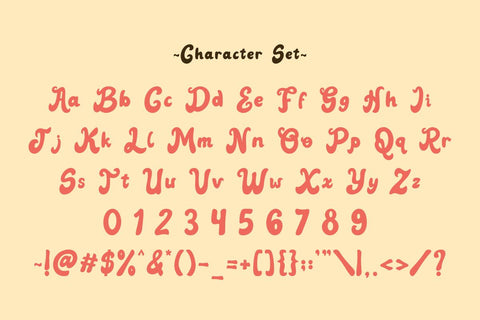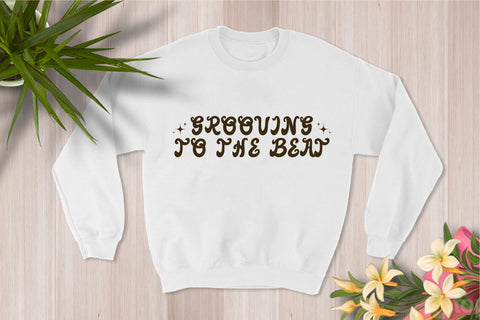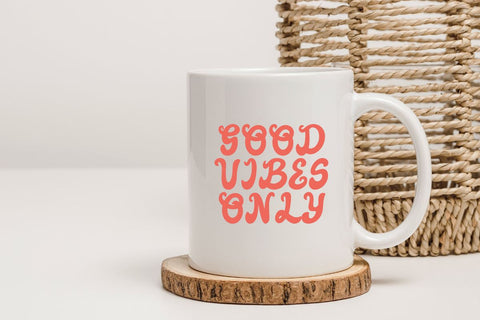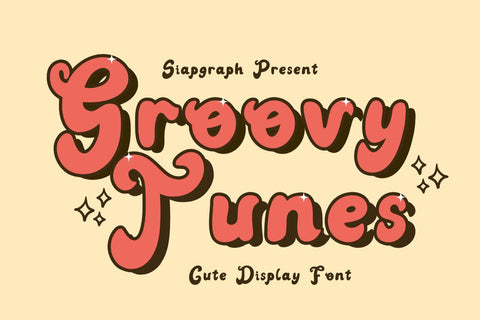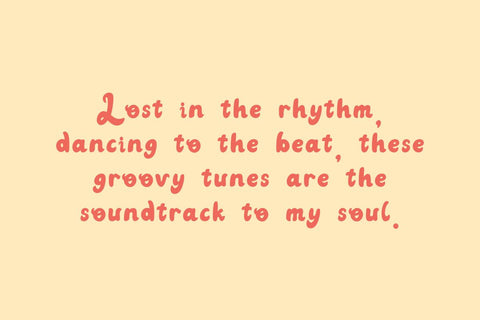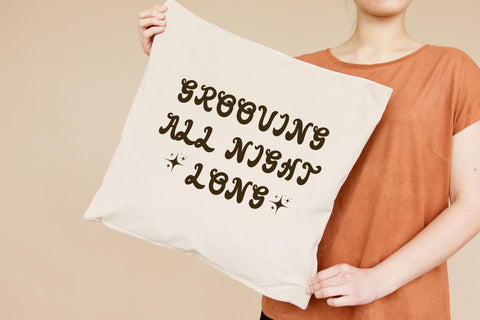
Groovy Tunes - Bold Retro Script Font
Groovy Tunes is a retro-inspired and playful script font that exudes charm and energy, making it a fantastic choice for adding personality to your creative projects.
Perfect for crafting, DIY, branding, and KDP interior, this font is ideal for planner designs, logos, greeting cards, merchandise, and product promotions. Its smooth, stylish script adds a fun and nostalgic vibe to any design, making it versatile and eye-catching for all your creative needs.